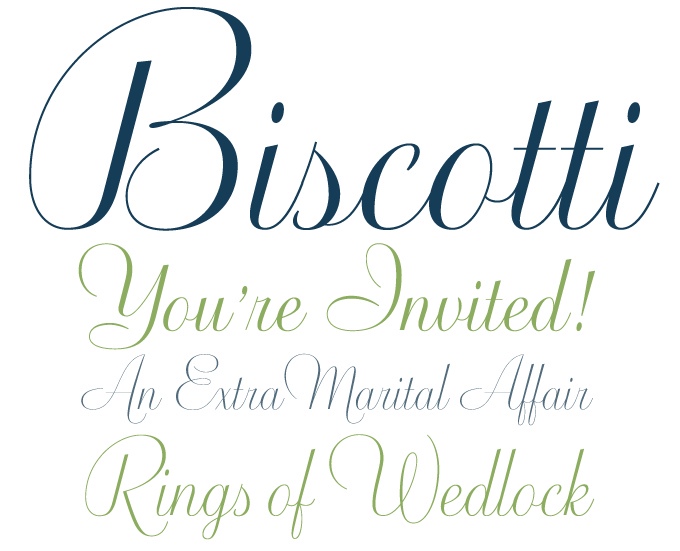
Biscotti Font
Biscotti Font is perfect for Italian bakery branding, artisanal cookie packaging, cozy cafe signage, traditional pastry shop displays, homemade treats marketing, European dessert menus, family recipe collections, and warm hospitality venues. This delightful typeface excels in applications where Italian warmth and baked goodness are essential for creating inviting and authentic brand experiences that celebrate the comfort of traditional baking.
What makes Biscotti Font truly exciting is its authentic embodiment of Italian baking tradition and the irresistible warmth of freshly baked cookies that captures the essence of nonna's kitchen and artisanal pastry craftsmanship. The font features rounded, comforting letterforms with gentle curves and sweet character details that mirror the golden-brown perfection of twice-baked biscotti and the loving care of traditional Italian baking. Its cozy personality and sweet character create an immediate sense of warmth and culinary comfort that resonates with audiences seeking authentic Italian food experiences and homemade quality. The typeface's Italian heritage and baked appeal make it perfect for brands wanting to convey tradition, comfort, and connection to the time-honored art of Italian baking and family food culture.
The Biscotti Font family includes regular and textured versions, complemented by Italian-inspired alternates and bakery-themed decorative elements. The font offers comprehensive character sets with culinary symbols, sweet ligatures, and traditional styling details that enhance its authentic aesthetic. Additional graphic elements including wheat stalks, rolling pins, baking motifs, and Italian ornaments provide designers with complete branding tools rooted in Italian culinary traditions and artisanal baking culture.
For designers seeking an authentic Italian baking-inspired typeface, Biscotti Font Free Download represents a perfect choice that brings culinary warmth to contemporary brand communications. Whether you're creating identities for Italian restaurants, designing packaging for artisanal bakeries, or developing marketing materials for food service businesses, this font delivers the authentic comfort that appeals to food lovers and culinary enthusiasts. Its sweet character and Italian appeal make it particularly effective for brands in food service, bakery, and hospitality industries celebrating traditional baking. The font's ability to evoke feelings of comfort, tradition, and culinary satisfaction makes it an invaluable asset for creating brand communications that celebrate Italian food culture, artisanal baking, and the nourishing power of traditional recipes in bringing families together and creating lasting memories through the universal language of delicious food.